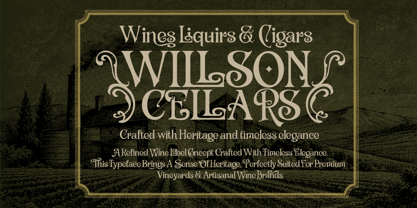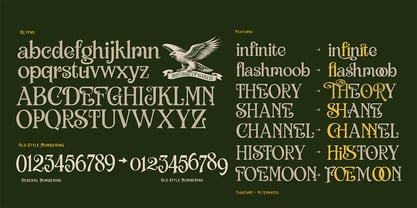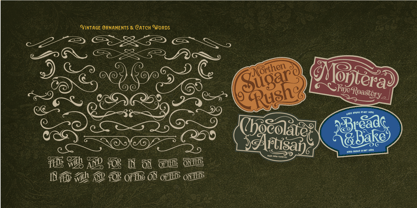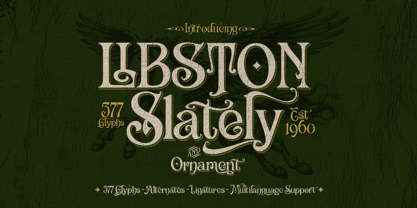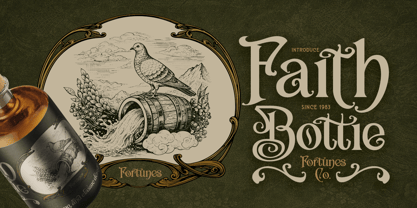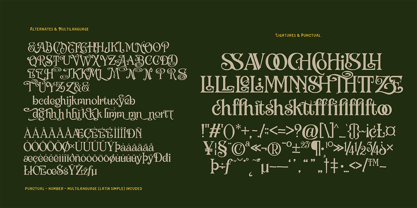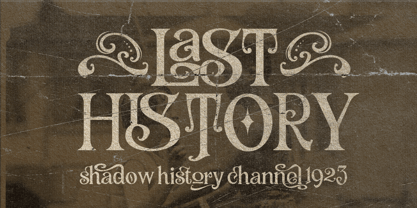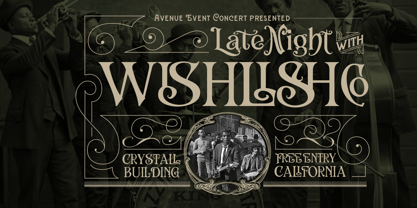
Fd Libston
by Fortunes Co
The Fd Libston Font Family was designed by Ramandhani Nugraha and published by Fortunes Co. Fd Libston contains 2 styles and family package options. More about this family
LIBSTON is a vintage serif typeface inspired by Victorian heritage and classic label design. Crafted with curves, ornamental details, and refined contrast, this font brings a timeless sophistication to your projects. With Bonus ornaments & catch words perfect for high-end branding, wine labels, packaging, logos, editorial layouts, and vintage-inspired designs, LIBSTON delivers a strong historical character with modern usability